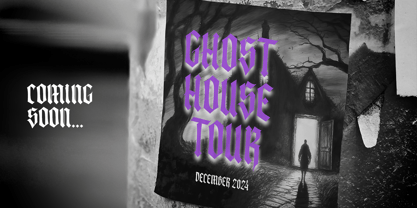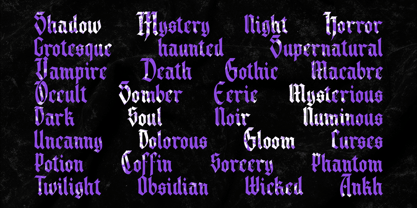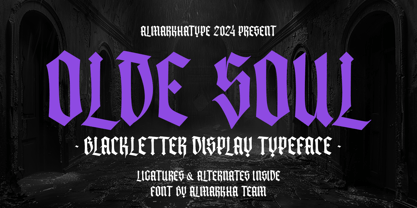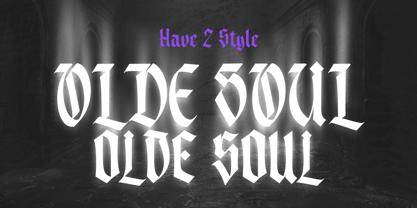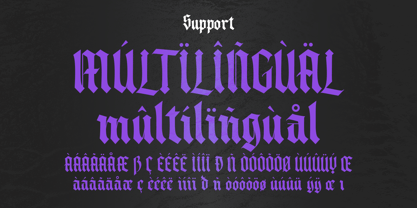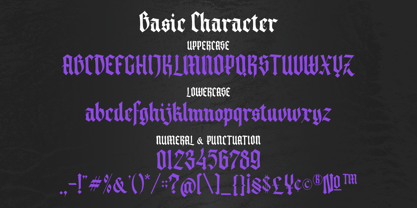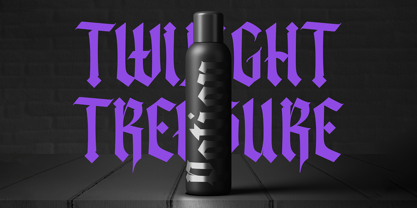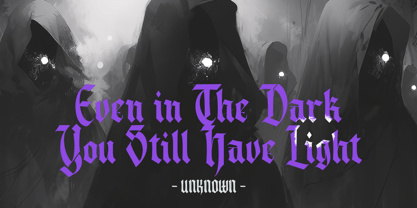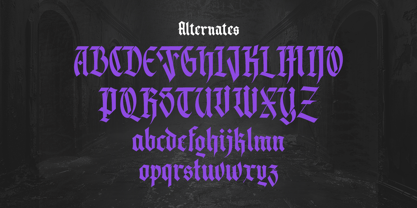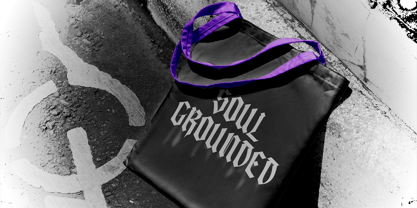
Olde Soul
by Almarkha Type
The Olde Soul Font Family was designed by Abdul Malik Wisnu and published by Almarkha Type. Olde Soul contains 1 styles. More about this family
Olde Soul is a vintage font inspired by the textura blackletter calligraphy style, featuring a minimalist vicious touch. This typeface combines the traditional intricacies of medieval script with contemporary design elements, resulting in a unique and versatile aesthetic. Its ornate, angular characters evoke a sense of history and sophistication, making it perfect for projects that require a blend of classic elegance and vicious design. Ideal for use in branding, logos, posters, and other creative works.
Designers: Abdul Malik Wisnu
Foundry: Almarkha Type